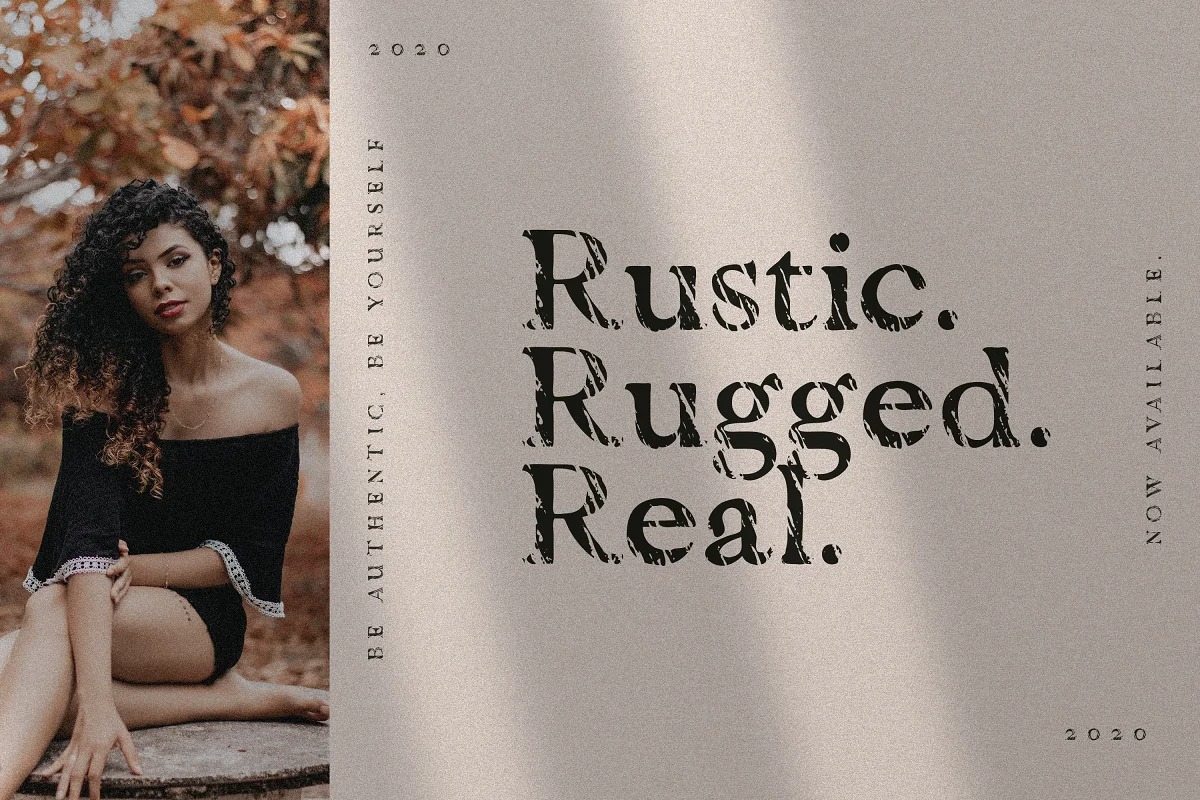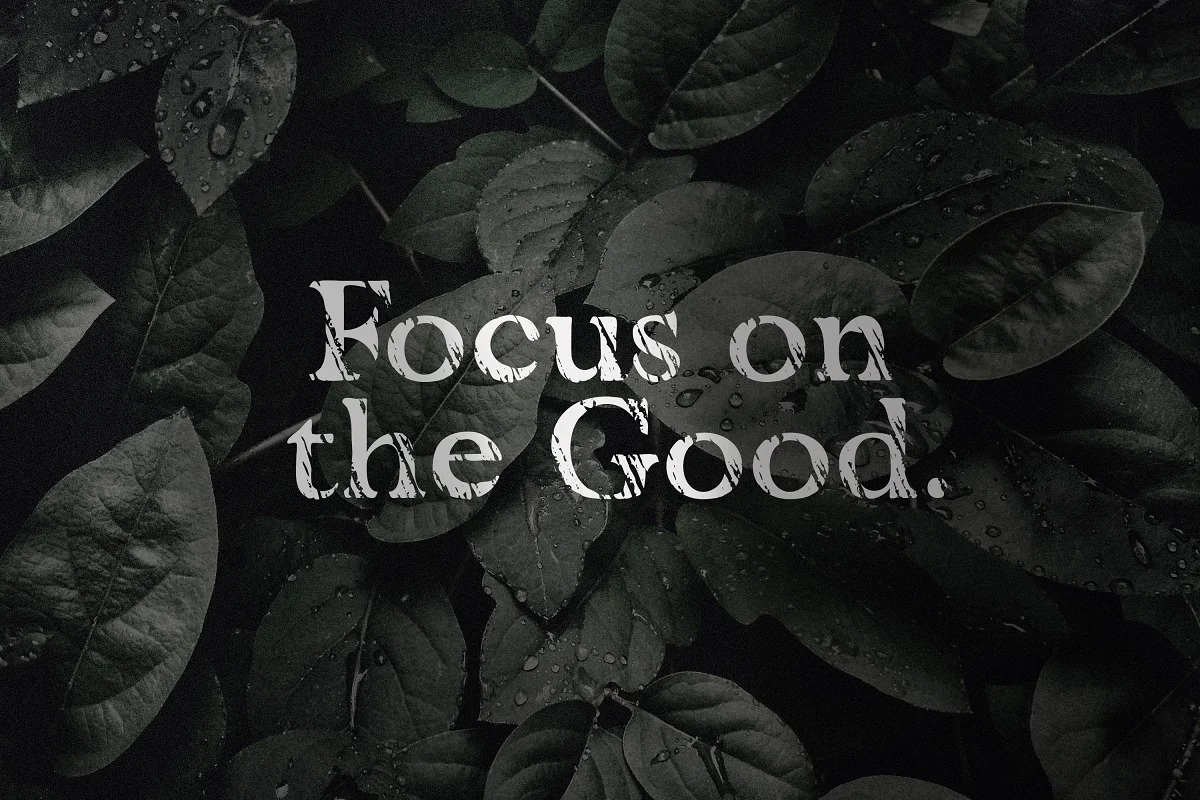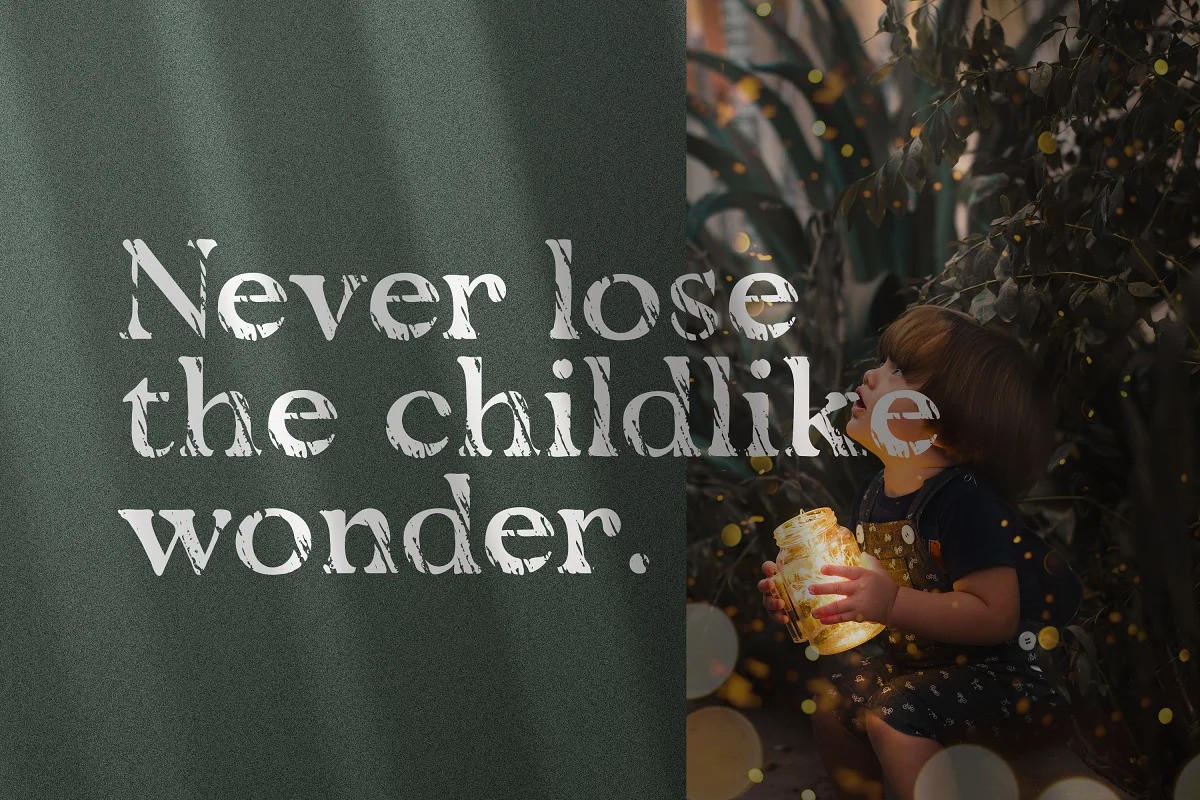
Vescona Serif Font comes in rough detail and vintage style. An adaptation of the life of the design industry in the 60s and 70s. Create logos, flyers, posters, invitations, hero headers, banners much more. The font includes uppercase, lowercase, numerals, puncutations and multilingual glyphs.